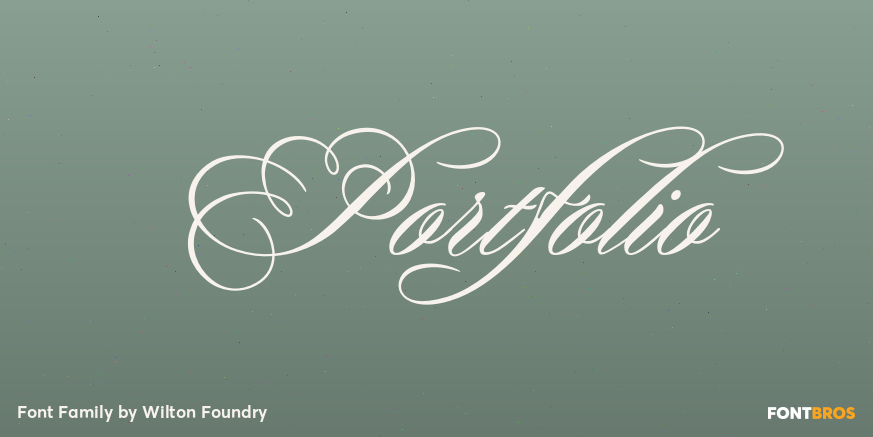
Portfolio
About Portfolio
In spite of the fact that Portfolio\’s capitals are highly ornate, it is still very legible. In combination with its elegant lowercase, Portfolio creates a prestigious presentation useful for Certificates, Wedding Invitations, Corporate Identities, Brochures,…